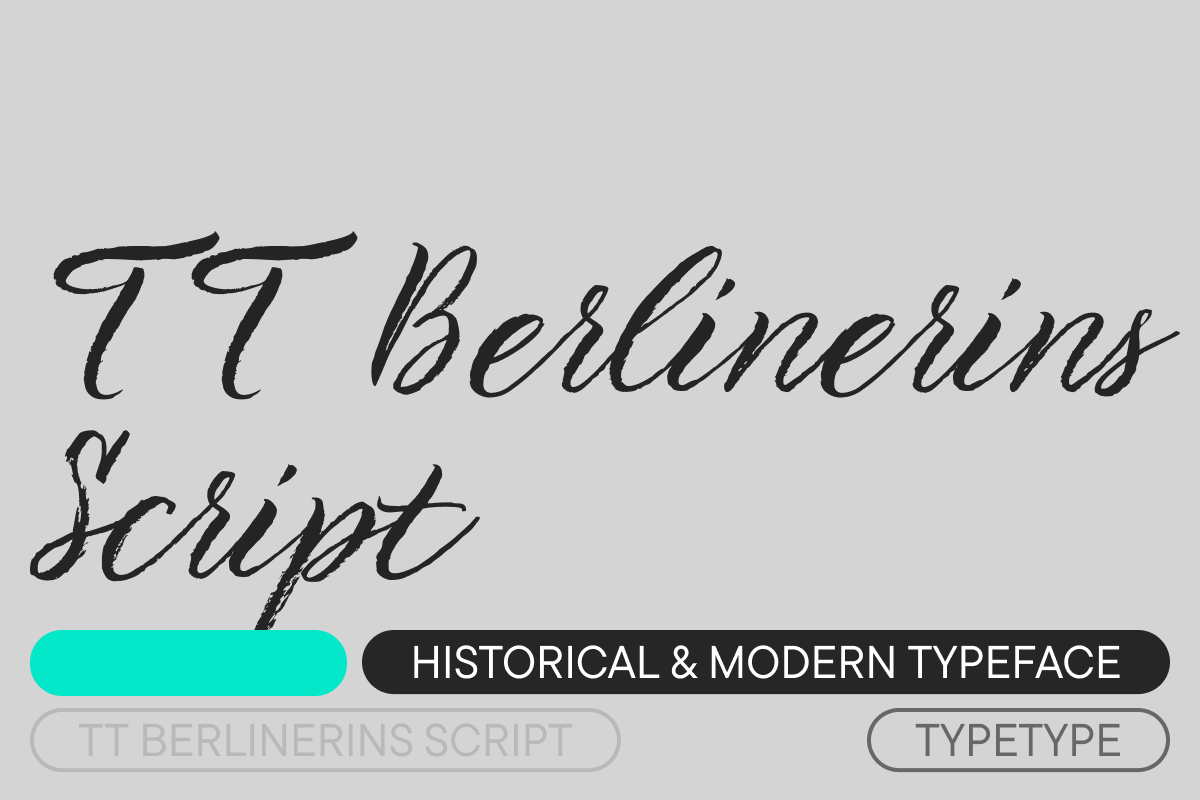
TT Berlinerins Script
TT Berlinerins is a contrast pair of typefaces which is basically our tribute to Berlin. Just like in the city itself where historicity and modernity are intertwined, the elegant script in our font family symbolizes the modern Berlin, and the sans-serif inspired by the wood-type poster types of the first third of the 20th century is responsible for the historic component of the city.